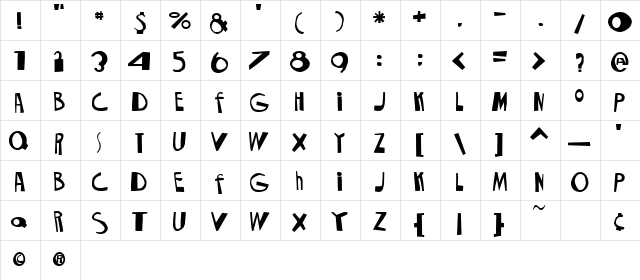
Taylors Regular
Design Context for Taylors Typeface
Taylors is a composed and adaptable typeface that performs quietly and consistently across a wide range of design contexts.